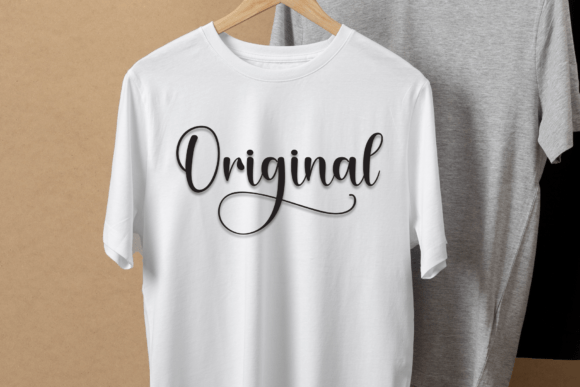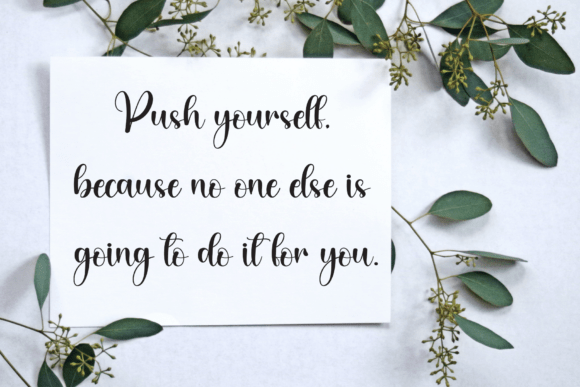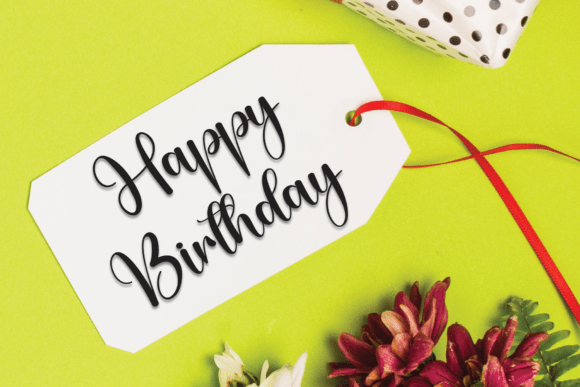
Brigthon Font
Add a touch of sophistication to your designs with this elegant script font with Swashes – a graceful, flowing typeface that’s perfect for creating romantic and luxurious visuals. With beautiful beginning and ending swashes, this script font adds an extra flourish to wedding invitations, branding projects, social media graphics, and handwritten quotes.